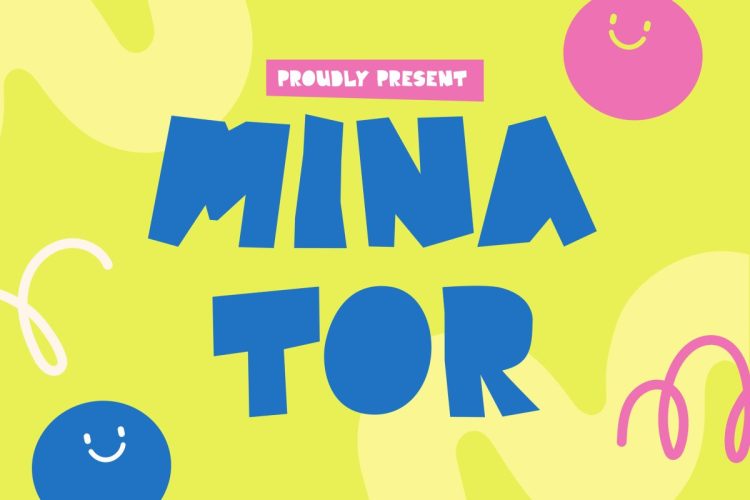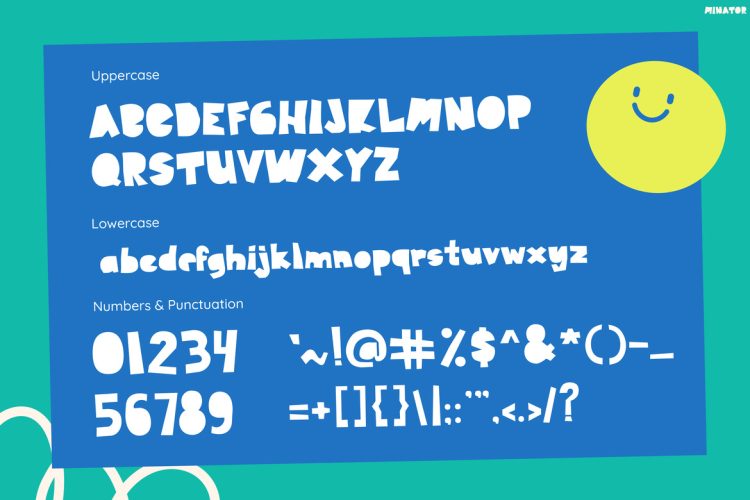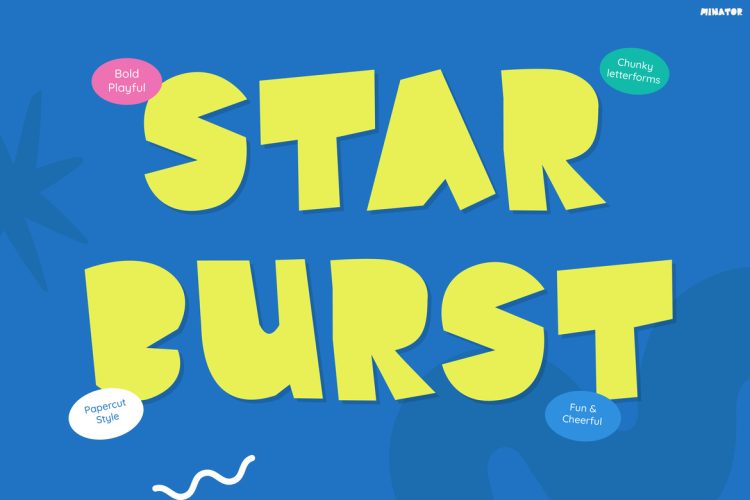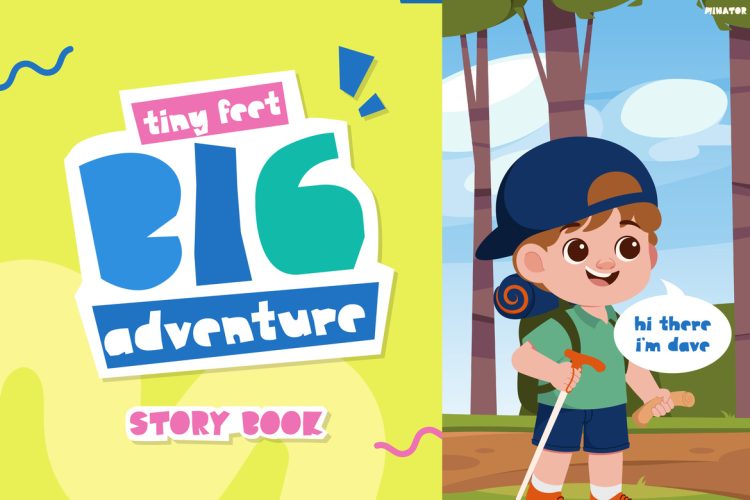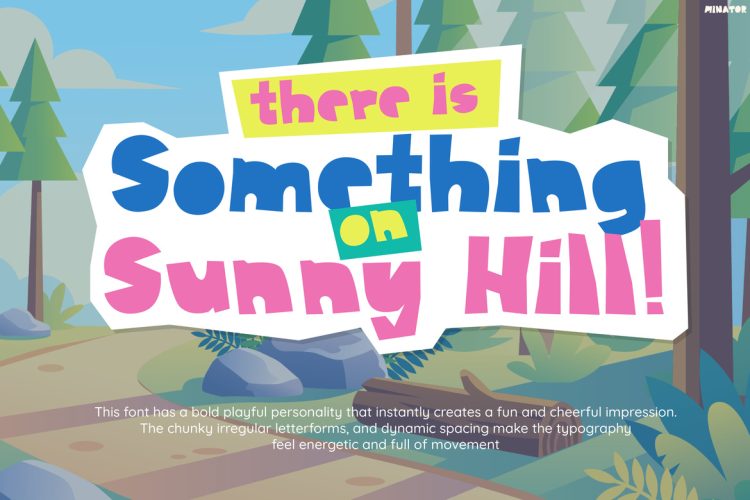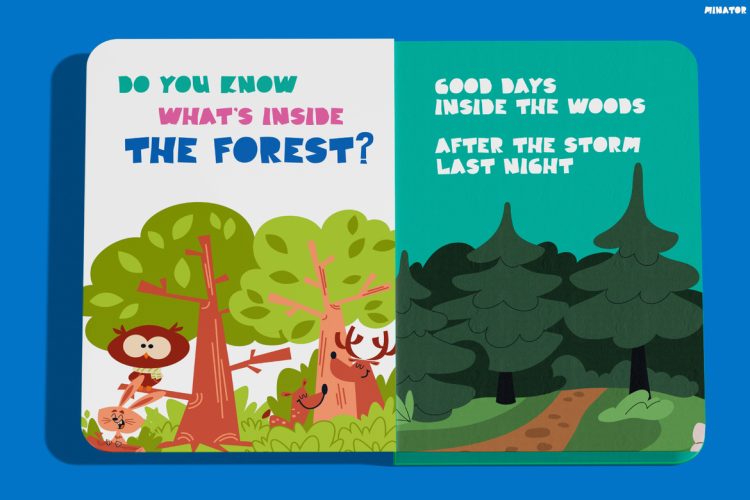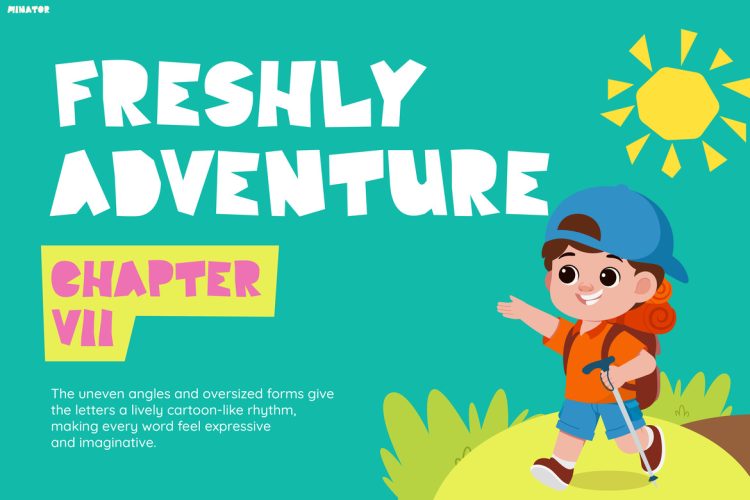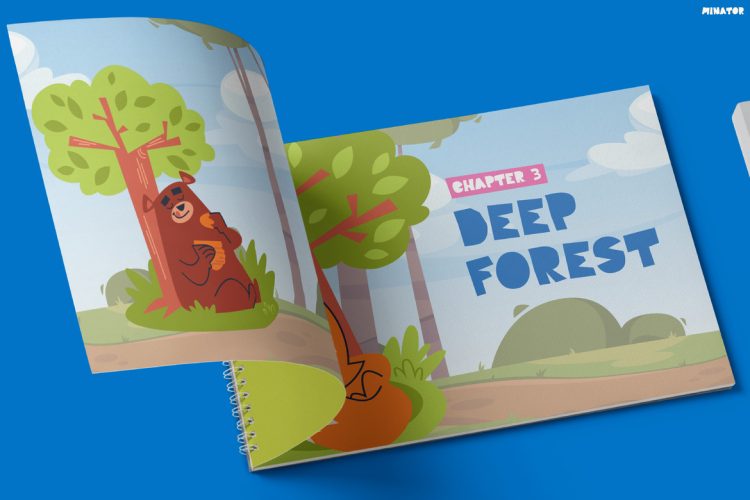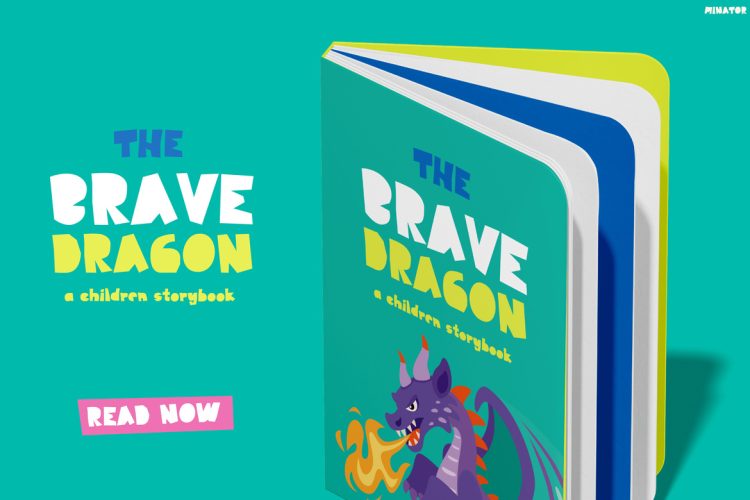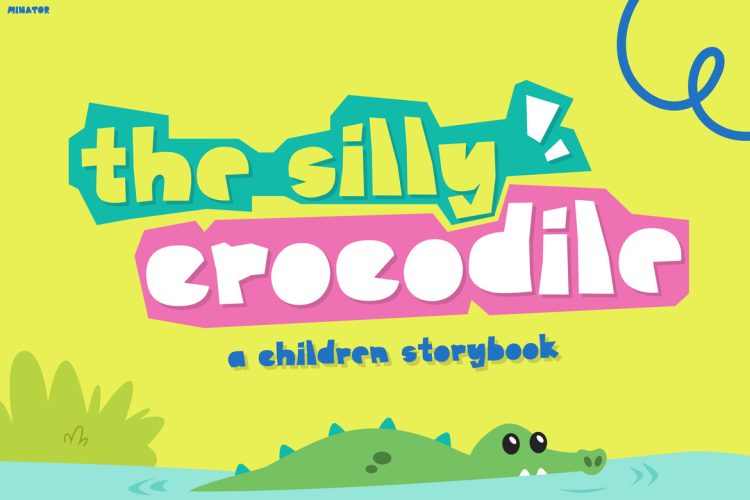
Kids Font Minator โ Playful Kids Font for Fun Adventures
Kids Font Minator brings a playful and adventurous vibe with chunky hand-drawn letters, fun curves, and energetic cartoon-inspired shapes. Furthermore, the font creates a bright and happy atmosphere that instantly grabs attention in childrenโs designs. Because of its bold structure and creative personality, Minator feels fun, expressive, and full of imagination. In addition, the playful lettering keeps every headline easy to read while still looking unique and exciting. As a result, your projects feel more lively, colorful, and engaging for young audiences.
Moreover, Minator blends cute storytelling aesthetics with modern playful typography, so it works perfectly for books, learning materials, and creative branding. Whether you are designing childrenโs storybooks, classroom posters, toy packaging, or social media content, this font helps every layout feel more interactive and memorable. Therefore, Minator becomes an excellent choice for creators who want typography that looks joyful, adventurous, and kid-friendly.
Kids Font Minator Perfect For Creative Projects
Additionally, Minator works beautifully in both print and digital projects because of its versatile and playful style. Consequently, your branding can look more creative, colorful, and visually attractive.
Make Every Design More Magical